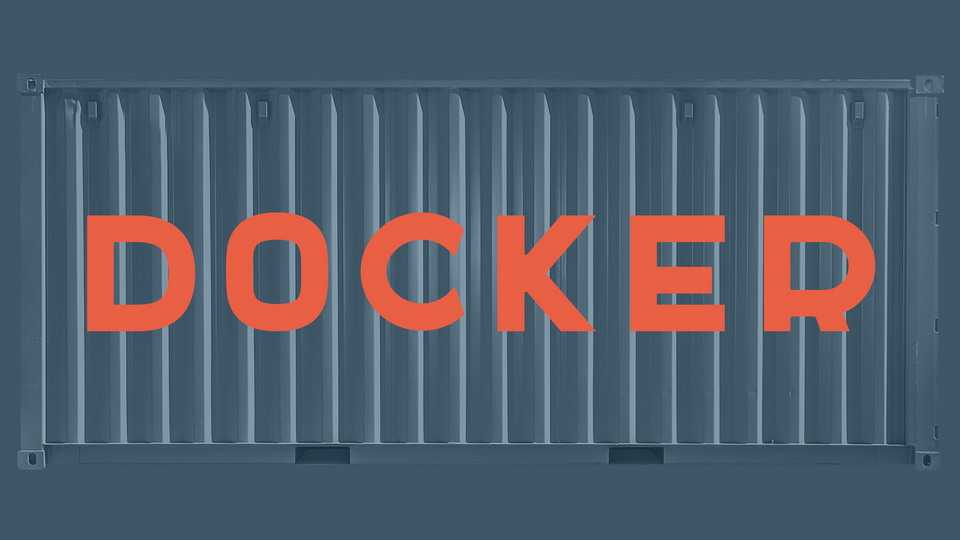
Download Docker typeface, a strong all caps display font family in 3 styles: Regular, Inline, Pseudo-3d. You can mix all three types of Docker with different colors and get some nice result.
Designer: Slava Krivonosov